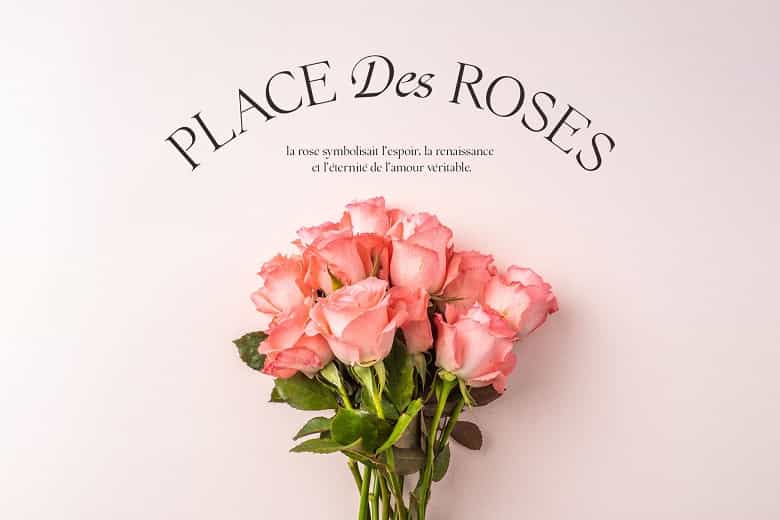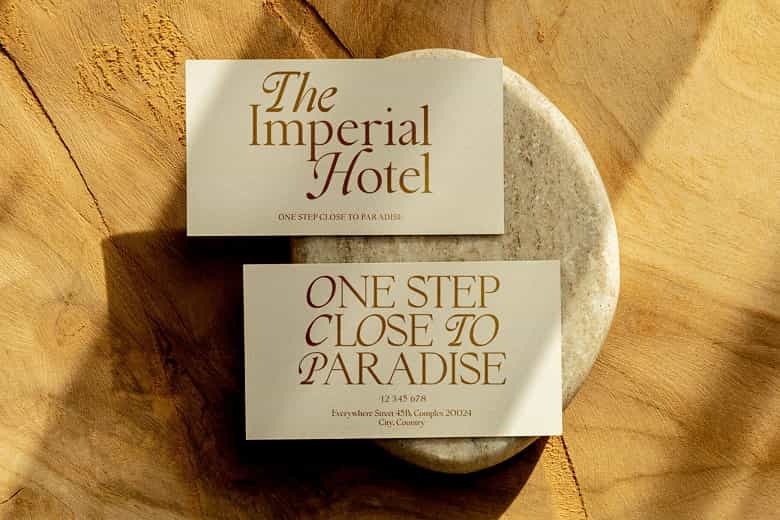
Gumarang is an elegant serif font with soft and slim shapes, and fine lines. Gumarang is available in Regular and Italic and its Italic variant is slightly influenced by calligraphy giving it a bit of elegance and fondness.